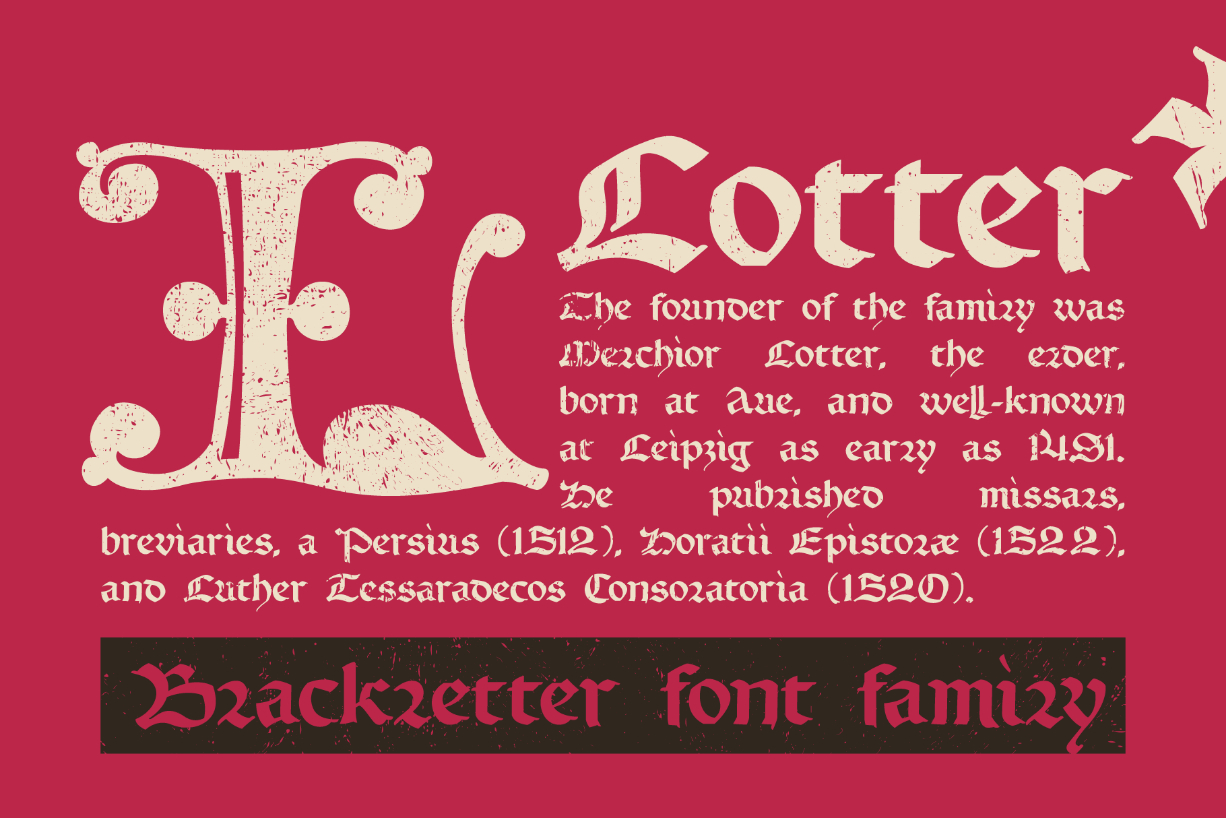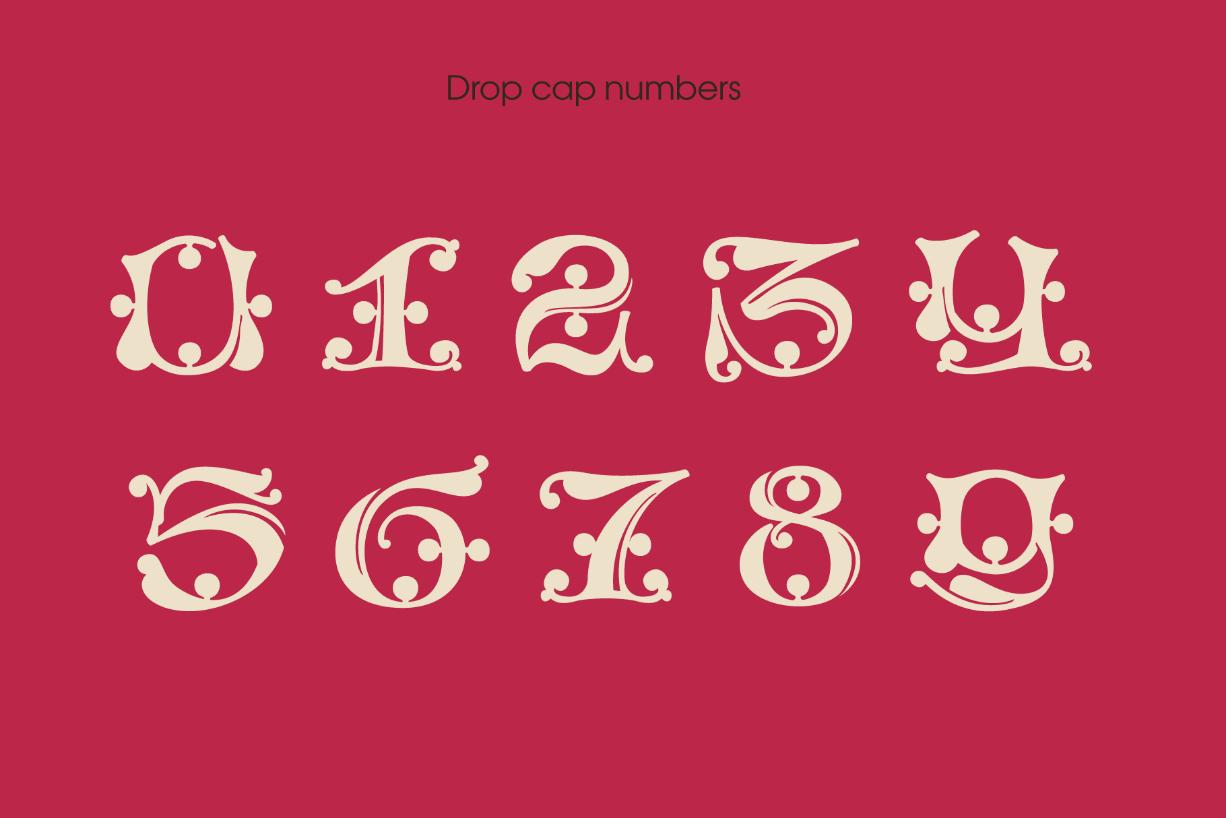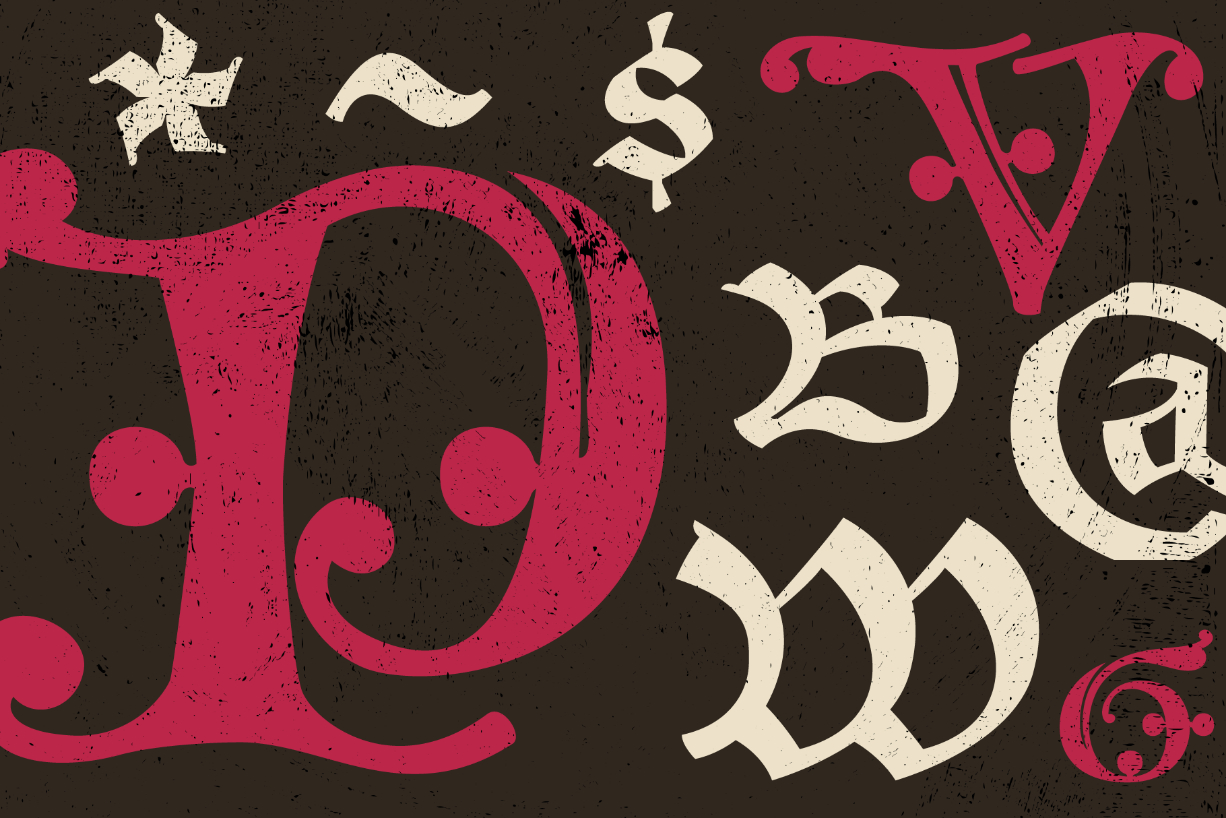
About Lotter Font
“A treatise by the Dominican friar-writer Marcus von Weida on the Brotherhood of the Holy Rosary” is a Medieval book printed in 1515 by Melchior Lotter in Leipzig. Its text was illustrated by hand-colored engravings of religious and liturgical themes and beautiful initials. Those initials are the inspiration for this amazing blackletter font: Lotter!
Lotter was the last name of a family of German printers, intimately connected with the Reformation. An innovation by the elder Lotter was his use of Roman types for Latin, reserving the Gothic types for German.
Lotter font family has two styles: Dropcap and Regular. It’s all you need to precisely imitate medieval-style text. Use Drop cap style as a decorative element at the beginning of a paragraph or section, and the other parts of the paragraph should be in Regular style for obtaining the typical Middle-Ages effect!